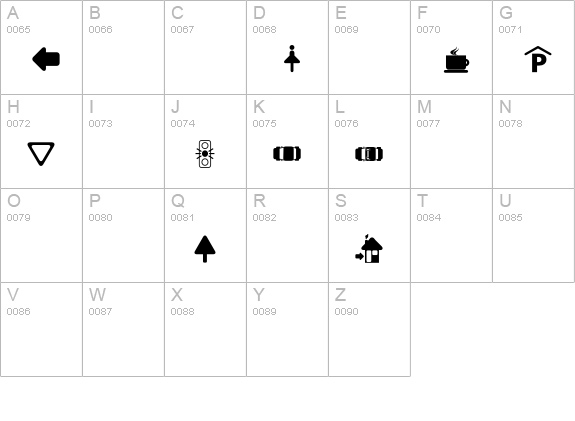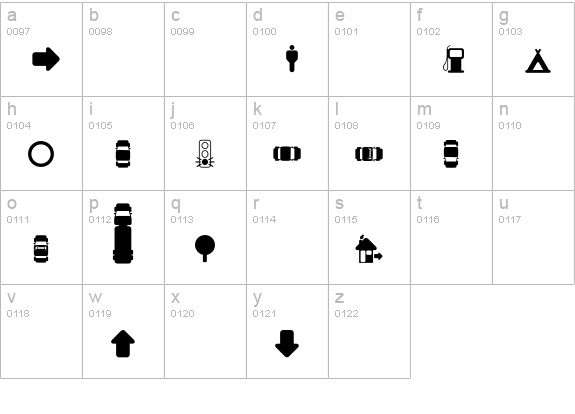
A44-basics font is a versatile and modern typeface that is perfect for a wide range of design projects. With its clean lines and simple yet stylish appearance, this font is sure to make your text stand out. Whether you are creating a logo, branding materials, or website design, A44-basics font will add a touch of elegance and sophistication to your work. Best of all, A44-basics font is available for free download at FontsMarket.com. This means you can easily access this high-quality font without any cost, making it a valuable addition to your font collection. Don't miss out on the opportunity to enhance your designs with the timeless appeal of A44-basics font. Download it today and start creating stunning visuals that will impress your audience.